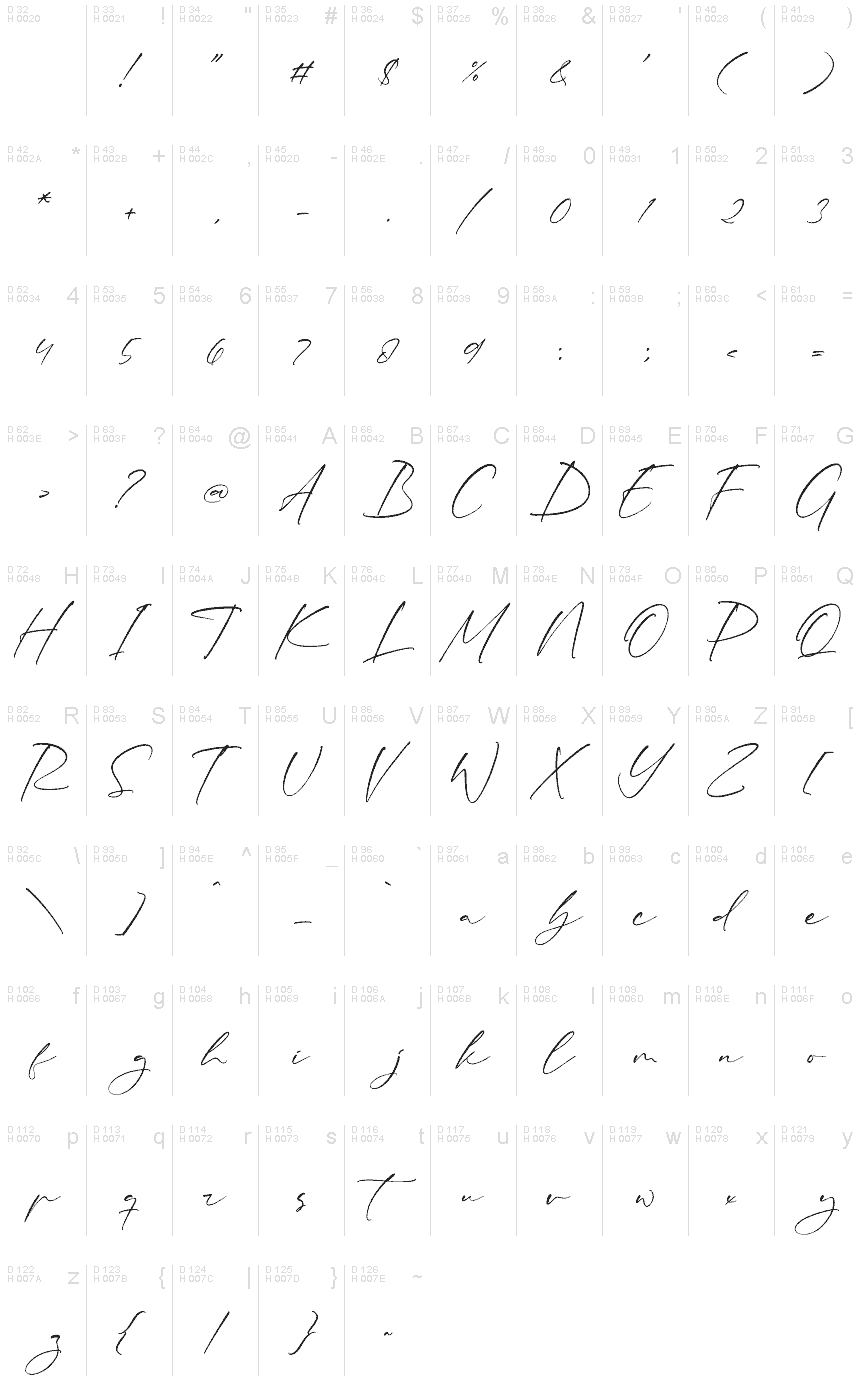
Rhastela Greams
Rhastela Greams font is a signature style font by Storytype Studio. With an elegant and flowing appeal, this light handwritten font features modern contemporary vibes. Allowing users to shine in style, it is created with expressions that allow room for wide imaginations particularly in artistic projects.
The free handwritten font works best for branding purposes, invitations, art-based magazines, clothing tags and labels. Use it in Instagram posts or posts on other social media channels to keep up with trends and attract followers. Some additional applications include logos of varied types of products but also product packaging.